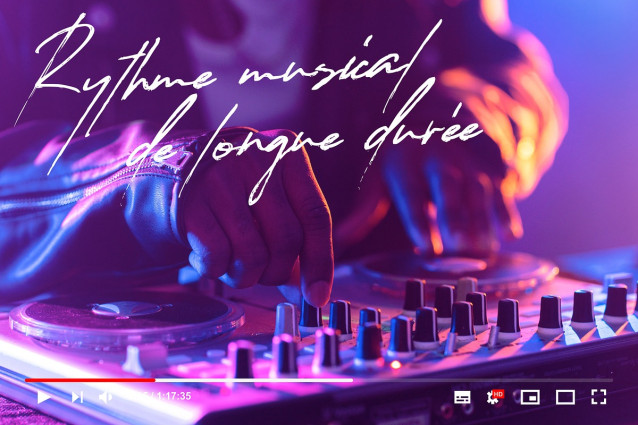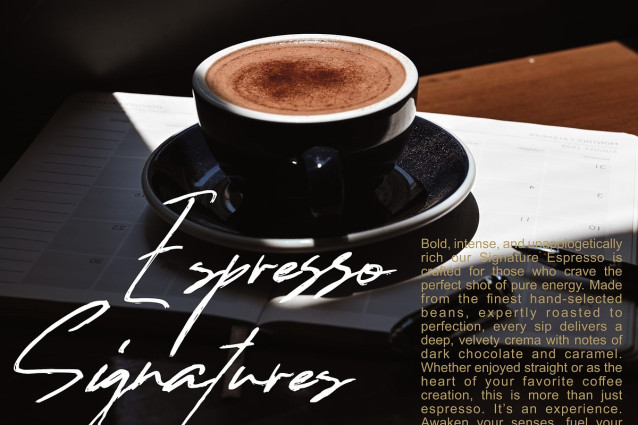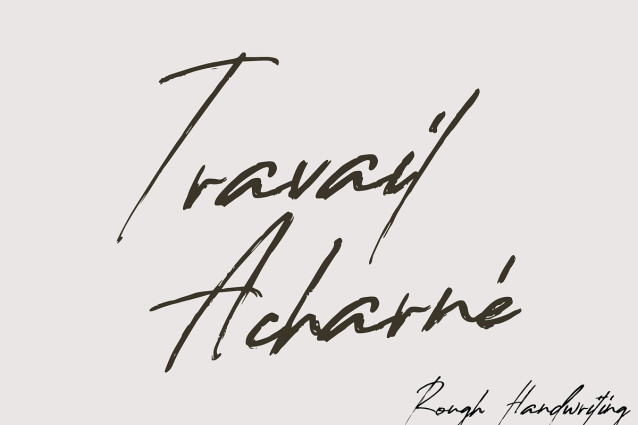
Travail Acharné Font
Travail Acharné Font is a raw and expressive rough handwriting font, crafted with an untamed, hand-scanned feel. Its rugged strokes and organic imperfections bring an authentic, hardworking character to any design.
Perfect for logos, book covers, food & beverage branding, promotional campaigns, video titles, product packaging, quotes, posters, flyers, and impactful text overlays, Travail Acharné is the ideal choice for projects that demand a bold and handcrafted aesthetic.